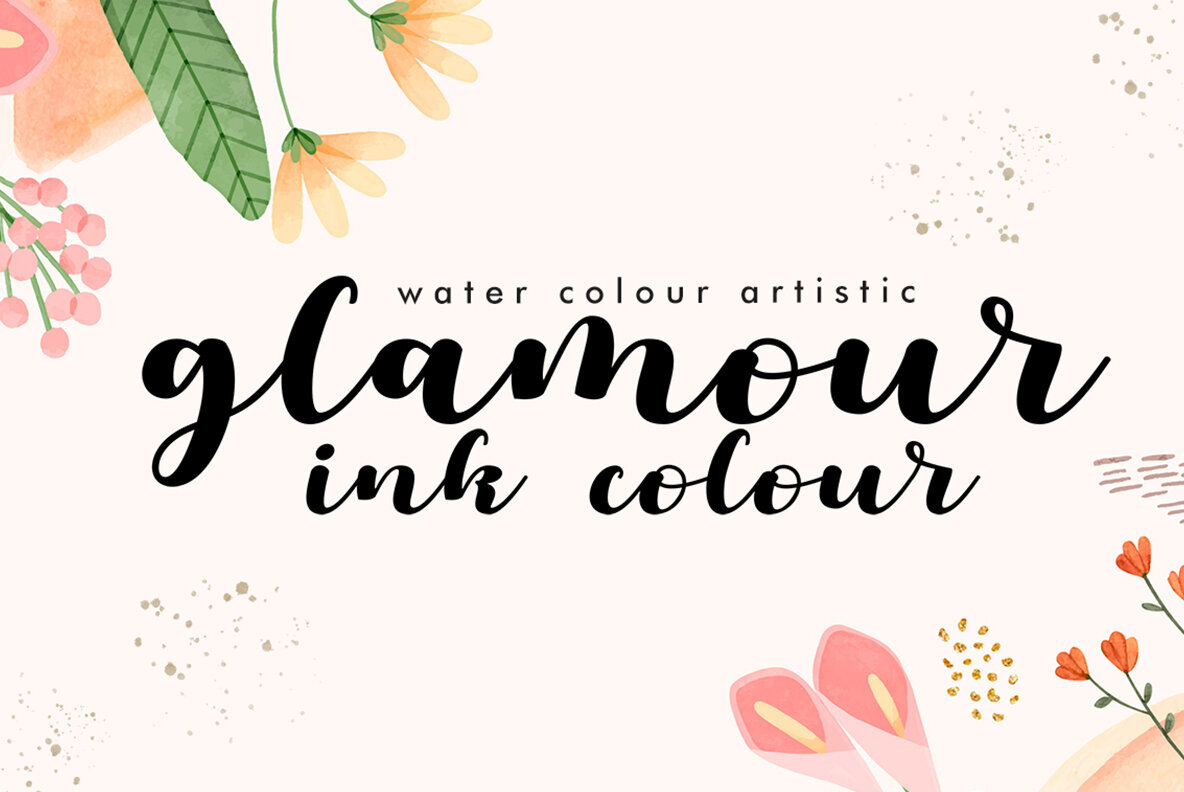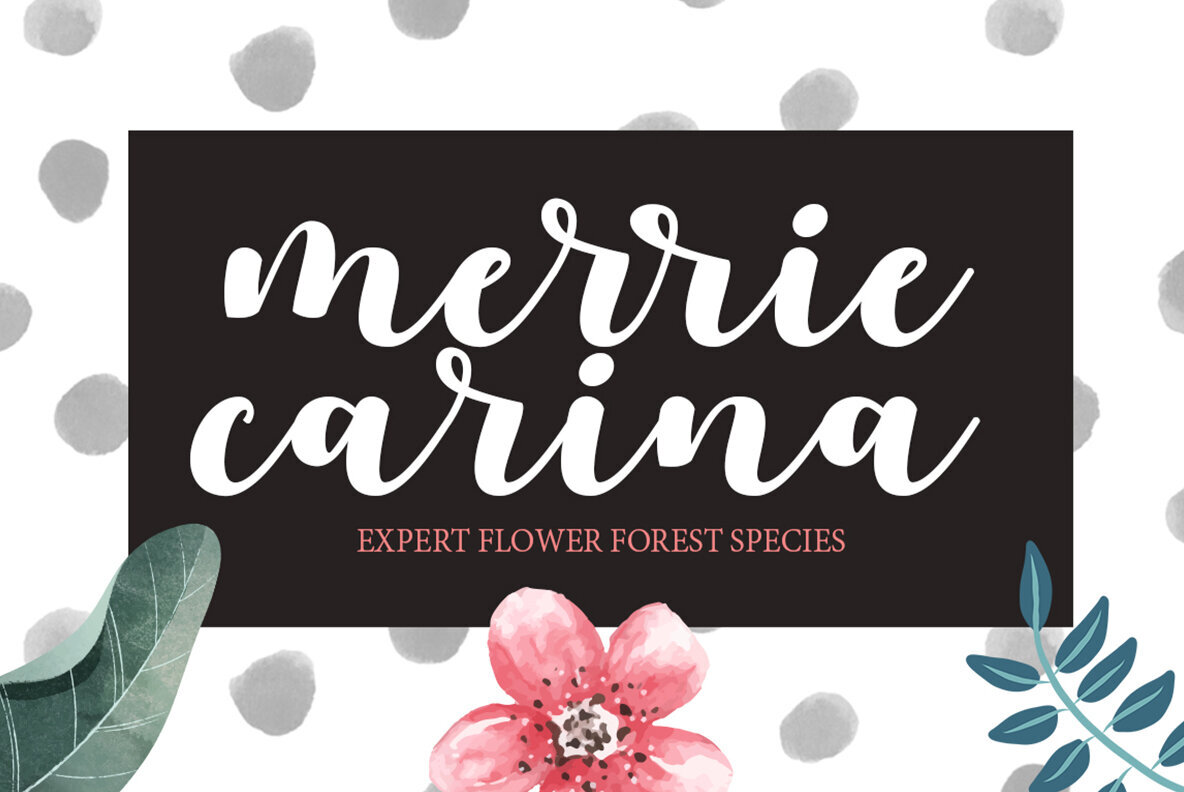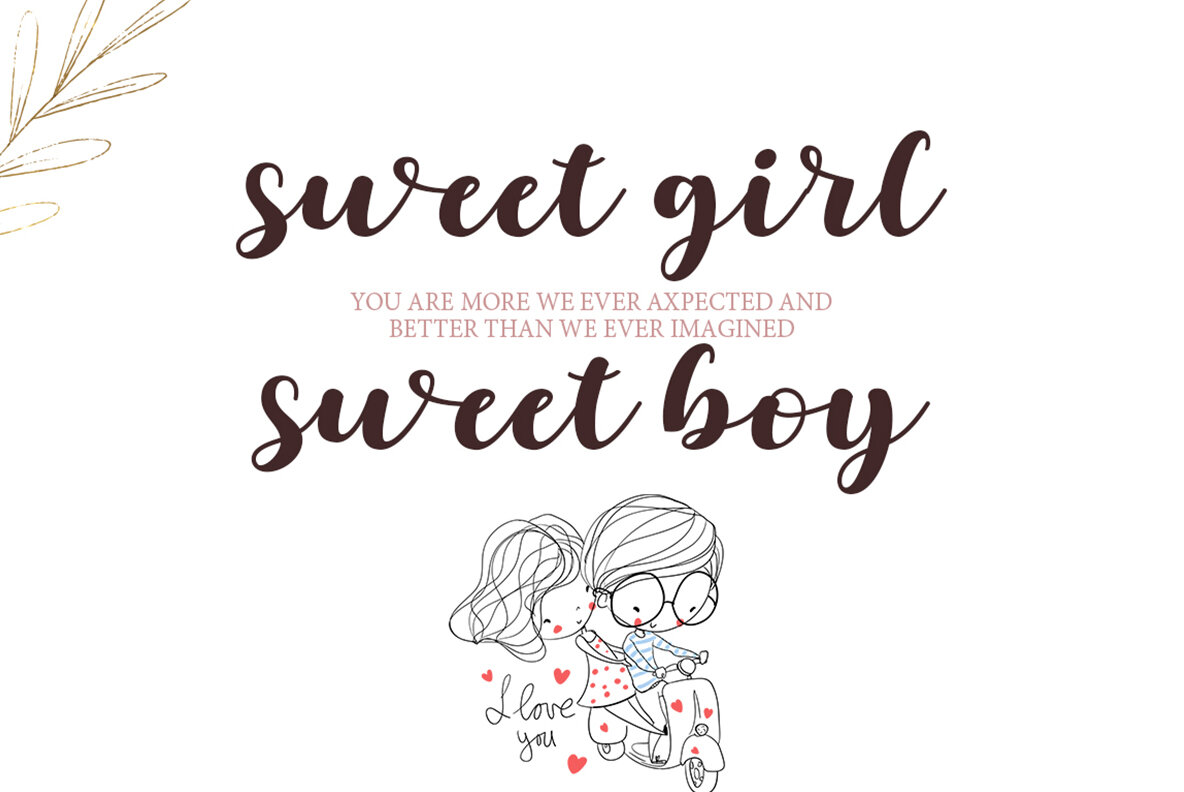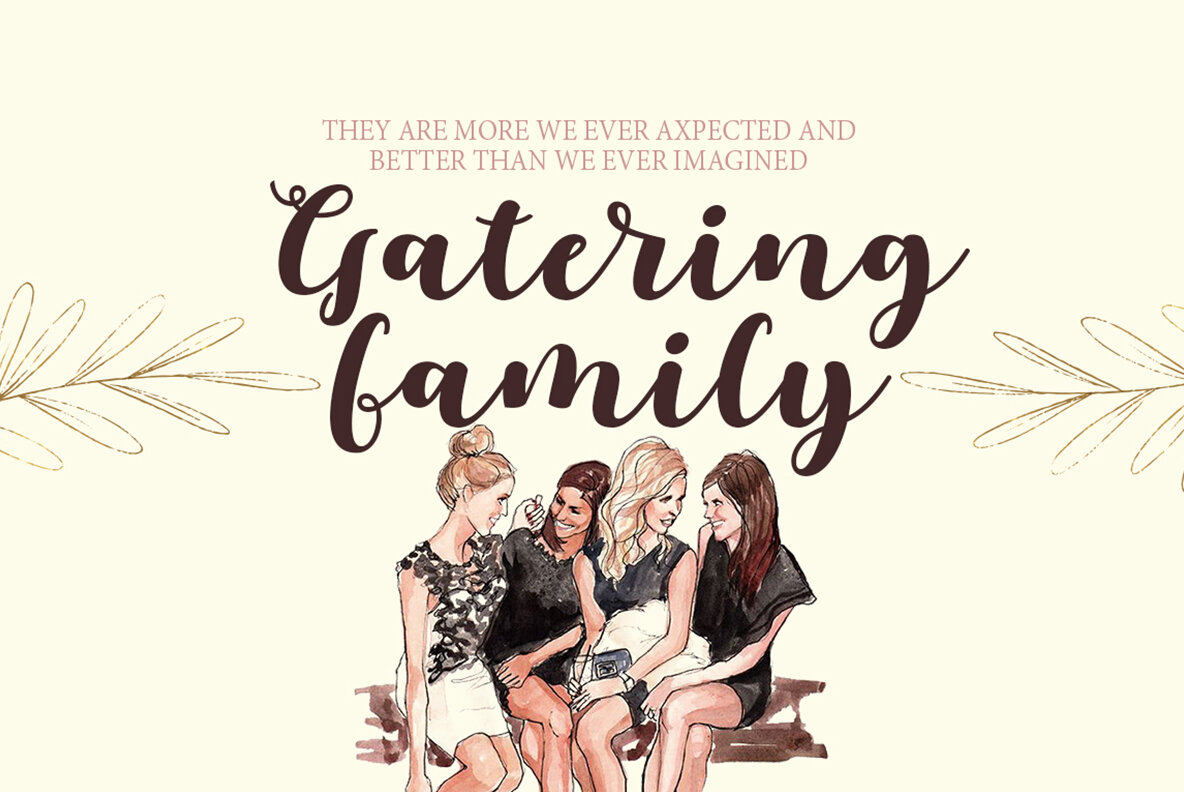
Sunchic Font
Sunchic Regular
The Sunchic Bold Script Font by Gatype is crafted to enhance a wide range of creative projects. Its chic and elegant design makes it ideal for various applications such as branding, watercolor artwork, invitations, and much more. Whether you are designing for weddings, social media, or special events, Sunchic offers a versatile solution to your typographic needs. To fully utilize Sunchic's OpenType stylistic alternatives, ensure that your software supports OpenType features. Compatible programs include Adobe Illustrator CS, Adobe Photoshop CC (using the Glyphs Panel), Adobe Indesign, CorelDraw X6-X7, and Microsoft Word 2010 or later. Additionally, encoded PUAs are supported, allowing for broad compatibility.Sunchic: Bold Script Font for Versatile Design Needs